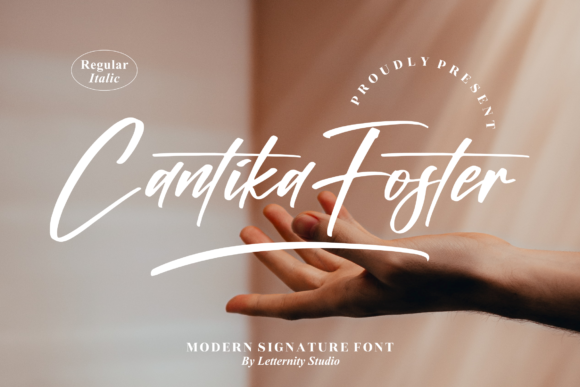
The Enchanting Cantika Foster Font: A Designer’s Dream
I’ll never forget the time I was working on a wedding invitation project, and my client asked for a font that was elegant, sophisticated, and utterly unique. I scoured the internet, tried out countless fonts, but nothing seemed quite right. That was until I stumbled upon Cantika Foster Font. I fell in love with its ravishing style and knew I had found the perfect fit. In this article, I’ll share my experience with Cantika Foster Font, its features, and how to make the most of it in your designs.
- ✨ Distinct and graceful script style that’s perfect for elegant designs
- 💫 Highly legible, even at smaller font sizes
- 🎨 Versatile and can be used for a wide range of design projects, from wedding invitations to branding and packaging
While Cantika Foster Font is an amazing addition to any design project, there are a few things to keep in mind:
- ⚠️ Some users may find the font a bit too ornate for certain projects, such as body text or captions
- 🤔 Limited availability of font weights, which may limit its use for certain design applications
The Story Behind Cantika Foster Font
Cantika Foster Font was designed with the intention of creating a beautiful and elegant script font that’s perfect for a wide range of design applications. The designer aimed to create a font that’s both refined and sophisticated, yet highly legible and versatile. The result is a stunning font that’s sure to elevate any design project.
Q: Is Cantika Foster Font suitable for body text or captions?
A: While Cantika Foster Font is highly legible, it may not be the best choice for body text or captions due to its ornate style. It’s best suited for headings, titles, and other display text.